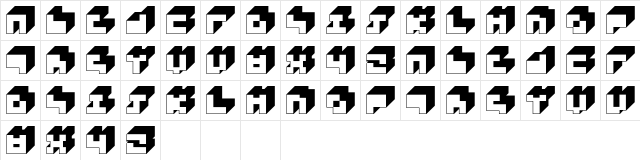
3x3 block
| Style | block |
| Foundry | marc beekhuis |
Design Context for 3x3 Typeface
3x3 is a composed and adaptable typeface that performs quietly and consistently across a wide range of design contexts.